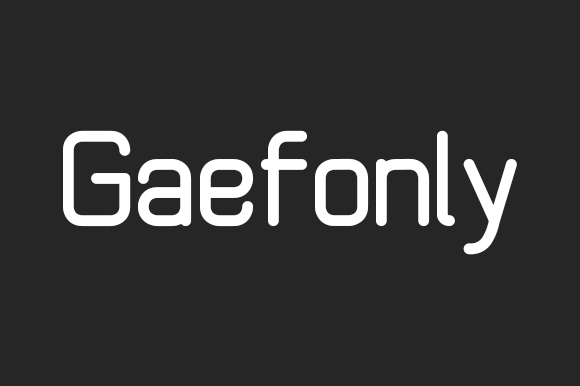
Prepare to be mesmerized by Gaefonly, the ultimate sans serif font that will transform your digital creations into masterpieces. Its clean lines and minimalistic charm make it the perfect choice for web design, leaving a lasting impression on your audience.
Unleash your creativity with Gaefonly, a font that seamlessly adapts to any project, bringing your ideas to life. Whether you're crafting logos, website designs, posters, or social media graphics, Gaefonly will effortlessly elevate your work, making it stand out from the crowd.
Step into the world of typography with Gaefonly, a font that combines simplicity with sophistication. Its carefully crafted characters exude elegance and clarity, ensuring your designs shine with professionalism and poise. Say goodbye to dull and uninspired fonts and embrace the beauty of Gaefonly.
Gaefonly is more than just a font; it's a gateway to endless creative possibilities. Its versatility knows no bounds, allowing you to explore a vast spectrum of styles and aesthetics. From sleek and modern to playful and whimsical, Gaefonly effortlessly adapts to your unique vision.
Experience the power of minimalism with Gaefonly, a font that declutters your designs, allowing the essence of your message to take center stage. Its unassuming presence creates a harmonious balance, ensuring your content remains the focal point, captivating your audience with its clarity and impact.
Join the creative revolution with Gaefonly, the font that ignites inspiration and transforms ordinary designs into extraordinary works of art. Its timeless beauty will leave an indelible mark on your projects, ensuring they resonate with your audience and leave a lasting impression.